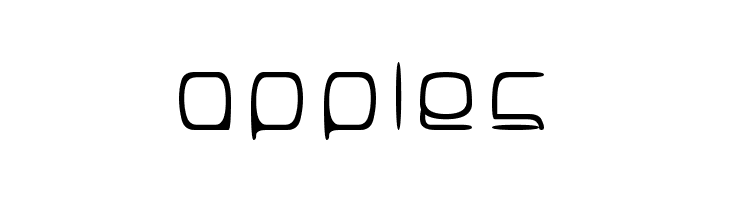
Republika III Cnd - Light Italic Font
- Font: Republika III Cnd - Light Italic
A futuristic, geometric font with rounded edges and a sleek, modern design.